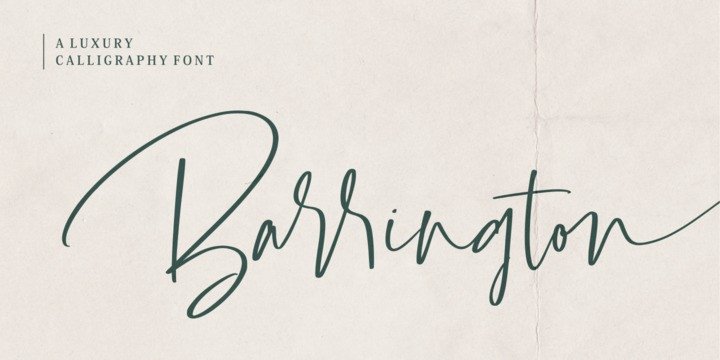
Barrington Calligraphy Font
Hi all…!! A casual calligraphy font and combination with Hand Lettering style which gives more personal touch and makes the font looks being customized! Introducing Barrington Font! A font with relaxed style and carries the impression of luxury. Barrington comes with 64 ligatures to give a natural impression, Uppercase Alternates to give different styles, and also ending swash. Barrington is perfect for branding & logo projects, also suitable for Product Packaging, Titles on articles or book covers, Stationary, and much more. Thank You!